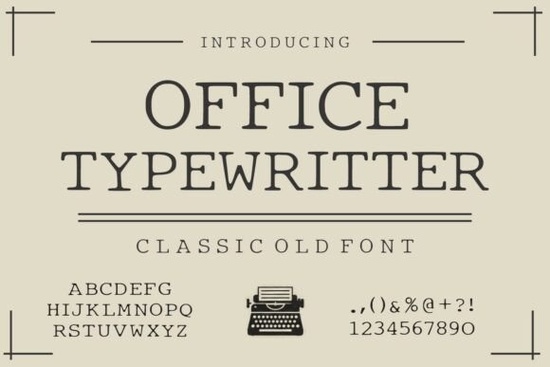
If you're looking for a font that feels like flipping through an old library archive or reading a first-edition novel, the Office Typewritter Font fits naturally into that space. It’s not overly distressed or cartoonish instead, it balances authentic typewriter quirks (like subtle uneven baselines and soft serif endings) with clean, readable letterforms. That makes it especially useful if you’re designing something meant to feel grounded in history but still functional today: think book covers for historical fiction, café menus with quiet charm, or certificates that deserve a little gravitas.
What makes this font work where others feel dated or hard to read?
Many vintage fonts lean too far into noise heavy texture, inconsistent spacing, or exaggerated irregularities that hurt legibility at small sizes. Office Typewritter avoids that by keeping its structure refined. The serifs are gentle, not sharp; the x-height is generous; and the letter spacing stays open enough for comfortable reading in both headlines and short body text (like on invitations or packaging labels). It’s designed to hold up in print and on screen whether you're exporting a PDF for letterpress stationery or previewing a Shopify product mockup.
Where do designers actually use it?
Real projects drive real decisions. Here’s where this font shows up most often:
- Book covers especially for literary fiction, memoirs, or academic titles where tone matters more than trendiness
- Vintage branding think apothecaries, independent bookshops, or craft distilleries wanting warmth without cliché
- Certificates & diplomas its dignified rhythm gives official documents quiet authority
- Newspaper-style layouts works well alongside simpler sans-serif companions for contrast and hierarchy
- Stationery sets wedding invites, thank-you notes, or even custom postage designs benefit from its tactile, human feel
It pairs thoughtfully with other serif fonts that share its calm confidence. For example, Rofina offers similar elegance but with a slightly more contemporary cut, while Twinklea brings delicate script contrast for headings or monograms. If you prefer something bolder and more architectural, Munnes holds its own beside Office Typewritter in editorial spreads. And for a complementary display option with stronger personality, Orlington adds just enough flair without clashing.
How does it compare to other typewriter-style fonts?
Not all “typewriter” fonts behave the same way. Some mimic mechanical imperfections so aggressively they become distracting. Others sacrifice character entirely for neutrality. Office Typewritter sits in the middle: it suggests age and care without pretending to be scanned from a crumbling manuscript. That restraint is why it works across mediums from laser-cut wood signs to digital newsletters without needing heavy editing or layering tricks.
For reference, you can see how it stacks up against similar options like Office Typewritter Font, Rofina Font, and Twinklea Font. Each has its own voice but only Office Typewritter delivers that specific blend of archival warmth and modern usability.
Try using it in two weights first: regular for body text or captions, and bold for headlines or logos. Avoid stretching or outlining the font its charm lives in its natural proportions. Also, check your line height: 1.4–1.6 works well for paragraphs, while tighter tracking (–10 to –20) helps headlines feel cohesive without crowding.